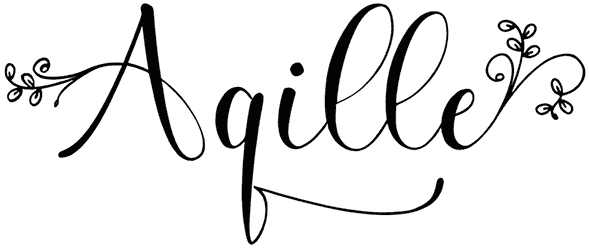
Aqille Font
The unique form and rounded style of Aqille’s characters make this script font look insanely perfect for any kind of creative idea that requires an artistic touch. This wedding font has the real potential to evoke a feeling of delicacy, precision, dynamism, and softness in the audience’s minds and persuades them to follow your work.